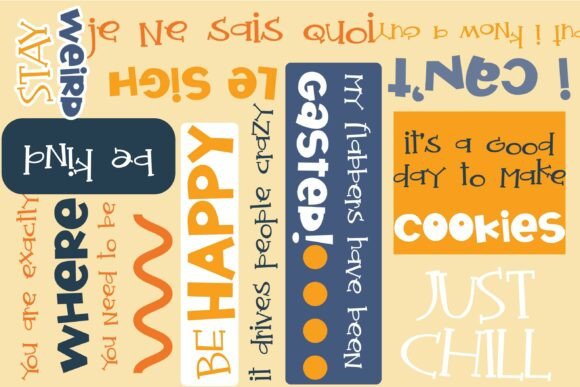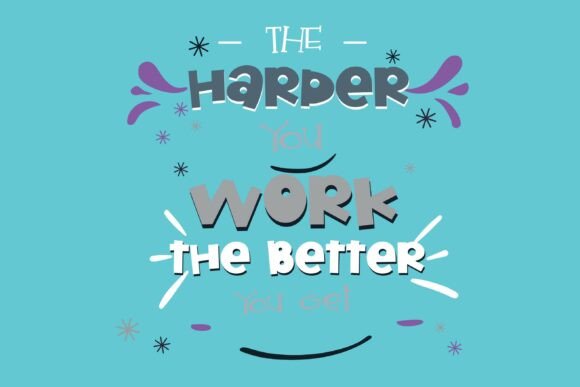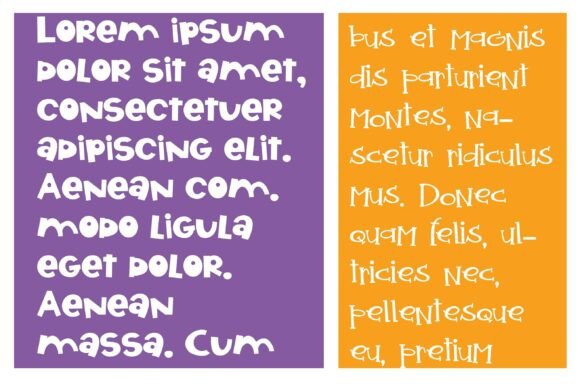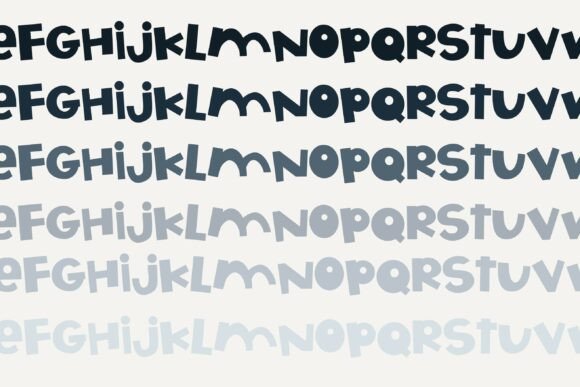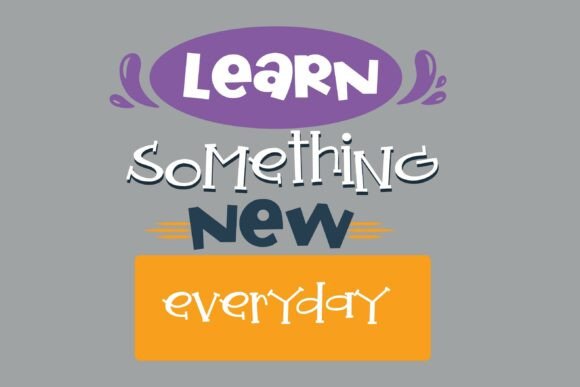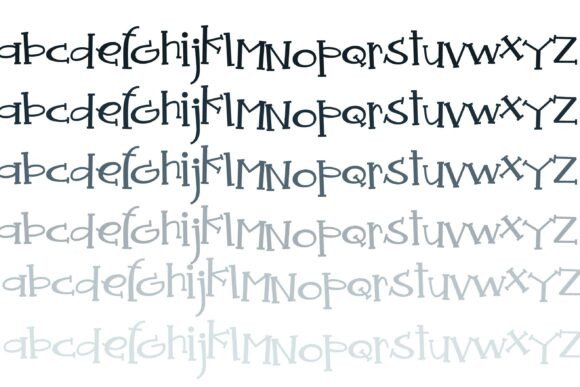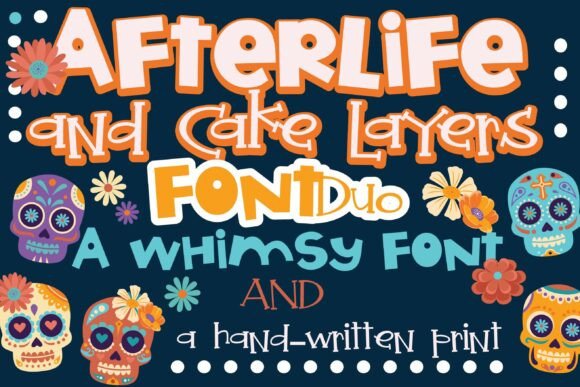
Introducing the Afterlife and Cake Layers Duo Font: Elevate Your Designs with a Touch of Whimsy and Celebration
Are you a designer or crafter looking for a unique font duo that can bring a spirit of celebration and storytelling to your designs? Look no further than the Afterlife and Cake Layers Duo Font. This enchanting pair combines a bold, festive display font with a hand-drawn print style, perfect for creating vibrant and themed visual projects that showcase your creativity.
The Perfect Pair: Afterlife and Cake Layers
The Afterlife and Cake Layers font duo is designed to help you strike the perfect balance between joyful expression and unique personality. Afterlife is a bold, festive font that exudes confidence and playfulness, while Cake Layers adds a handmade, approachable touch to your designs. This contrasting pair allows you to create visually appealing and engaging projects that capture the essence of celebration and storytelling.
Whether you’re working on a project for Día de los Muertos designs, party invitations, cultural posters, or themed branding, the Afterlife and Cake Layers font duo is the perfect choice. The fonts’ versatility and unique characteristics make them suitable for a wide range of design applications, from fun and playful to spooky and meaningful.
Key Features of the Afterlife and Cake Layers Font Duo
- Bold and Festive: Afterlife is a bold, festive font that’s perfect for creating eye-catching headlines and titles.
- Hand-Drawn Print Style: Cake Layers features a hand-drawn print style that adds a touch of warmth and approachability to your designs.
- Whimsical and Playful: The font duo’s whimsical and playful nature makes it perfect for creating designs that showcase your personality and style.
- Unique Character: The Afterlife and Cake Layers font duo boasts a unique character that sets it apart from other font pairs.
Why Choose the Afterlife and Cake Layers Font Duo?
So, why should you choose the Afterlife and Cake Layers font duo for your next design project? Here are just a few reasons:
- Standout Designs: The font duo’s unique characteristics ensure that your designs will stand out from the crowd and capture the attention of your audience.
- Time-Saving: With the font duo’s versatility and range, you can create a wide range of designs without having to switch between multiple fonts.
- Inspires Creativity: The Afterlife and Cake Layers font duo’s whimsical and playful nature inspires creativity and encourages you to experiment with new design ideas.
Design Ideas to Get You Started
Need some inspiration to get started with the Afterlife and Cake Layers font duo? Here are a few design ideas to spark your creativity:
- Día de los Muertos Posters: Create vibrant and colorful posters to celebrate the Day of the Dead with the Afterlife and Cake Layers font duo.
- Party Invitations: Design playful and festive party invitations that showcase the font duo’s whimsical nature.
- Cultural Posters: Use the font duo to create culturally-inspired posters that celebrate heritage and tradition.
- Themed Branding: Develop a unique brand identity with the Afterlife and Cake Layers font duo that’s perfect for themed businesses and products.
The Afterlife and Cake Layers font duo is a powerful design tool that brings a spirit of celebration and storytelling to your designs. With its bold, festive display font and hand-drawn print style, this pair is perfect for creating vibrant and themed visual projects that showcase your creativity. Whether you’re a designer or crafter, the Afterlife and Cake Layers font duo is a standout choice that’s sure to inspire your next design project.